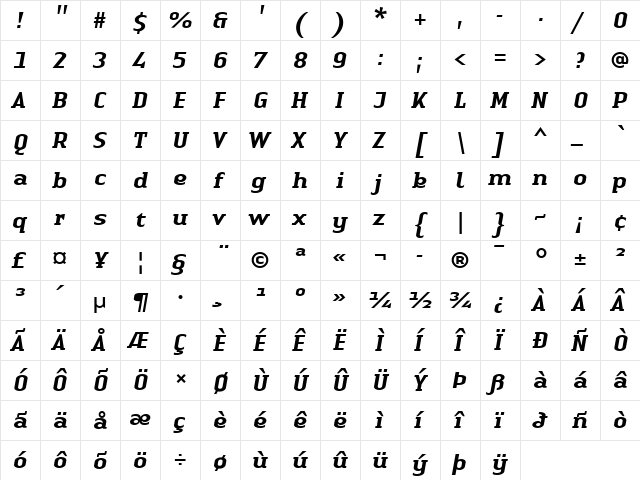
LTAuthenticSerif MediumItalic Medium Italic
Design Context for LTAuthenticSerif MediumItalic Typeface
LTAuthenticSerif MediumItalic carries the refined structure of traditional serif typography, with bracketed terminals and considered proportions that communicate credibility and craft. The slanted form adds forward momentum and visual energy.